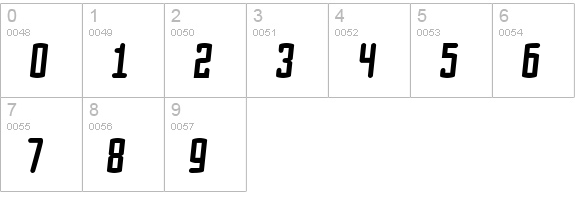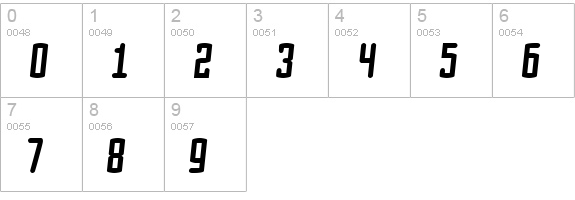
Introducing Speed Crazy, a bold and dynamic font that exudes energy and excitement. With its sleek and modern design, this font is perfect for capturing attention and making a statement. Whether you're designing a poster, branding materials, or a website, Speed Crazy will add a touch of boldness and speed to your project. This font features sharp and edgy letterforms that are inspired by the fast-paced world of racing and adrenaline. Each character is carefully crafted to convey a sense of speed and movement, making it ideal for projects related to sports, automotive, or any industry that thrives on speed and excitement. But what sets Speed Crazy apart is not just its striking design, but also its accessibility. This font is available for free download at FontsMarket.com, allowing designers, creatives, and enthusiasts alike to utilize its impressive features without any cost. It's the perfect opportunity to add a touch of speed and energy to your designs without breaking the bank. With Speed Crazy, you'll have the freedom to experiment and create eye-catching visuals that truly stand out. Its versatility allows you to use it in various design contexts, from headlines and titles to logos and advertisements. The possibilities are endless, and the only limit is your imagination. So why wait? Download Speed Crazy today from FontsMarket.com and unleash the power of speed in your designs. Get ready to make a bold statement and leave a lasting impression with this incredible font that's freely available for everyone.